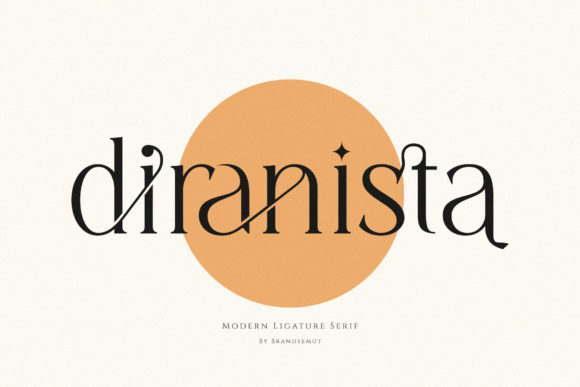
Dive into the world of sophistication and elegance with Diranista Font, a masterpiece crafted by BrandSemut. Designed to evoke a sense of timeless beauty, this serif font exudes a delicate and classy aura that will elevate any creation it graces.
With its meticulously crafted curves and refined details, Diranista Font adds a touch of luxury to your designs, making it the perfect choice for wedding labels. Its ornate flourishes and graceful lines evoke a sense of romance and celebration, capturing the essence of this special occasion.
Imagine your wedding invitations adorned with Diranista Font, the letters flowing like a gentle whisper, inviting your guests to share in your joy. The intricate details and elegant curves will leave a lasting impression, setting the tone for a day filled with love and happiness.
Beyond wedding labels, Diranista Font's versatility extends to a wide range of design projects. Its timeless appeal and classic style make it suitable for logos, branding, posters, flyers, and even social media graphics. The font's inherent charm and sophistication will elevate any project, adding a touch of refinement and luxury.
With Diranista Font, you hold the key to unlocking creativity and making your designs shine. Its delicate strokes and graceful curves will transform your words into works of art, captivating your audience and leaving them in awe.